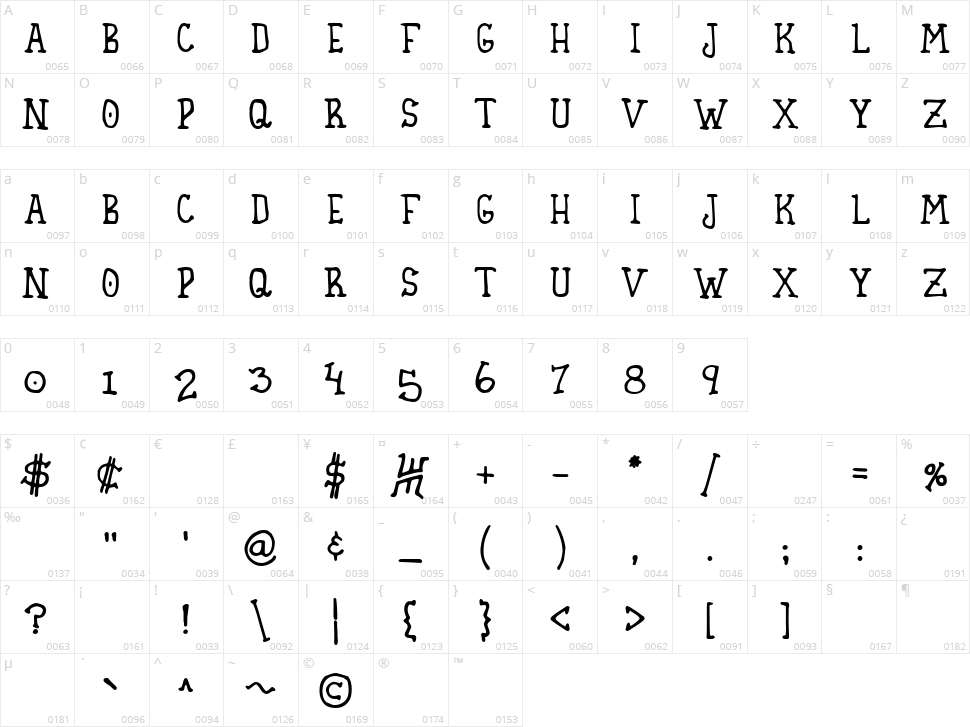
Homespun
HOMESPUN
Heres another cousin in the same friendly hand-drawn Roman family as Apple Butter and Atlas of the Magi. Like those, Homespun hails from hand-drawn masters created with a Sharpie laundry marker on ordinary notebook paper, then smoothed a bit to add warmth and remove the paper bleed. Homespun sits a little taller in the saddle than the earlier fonts, and comes in two versions: regular and small-caps. Homespun Small Caps is a genuine small-caps font, with proportionate line-weight between the uppercase and lowercase glyphs (which means the lowercase set looks a little chubby, but it was an experiment I learned from, so theres that).
Both are full-keyboard fonts with a few extras thrown in.